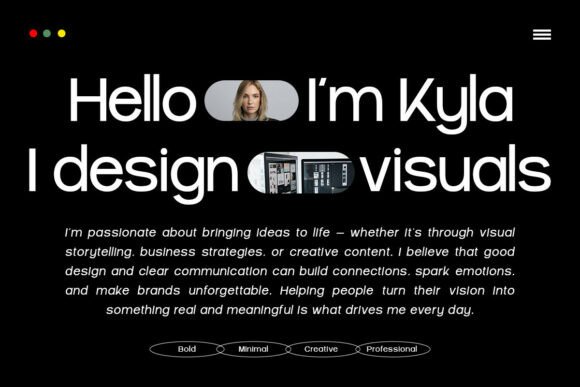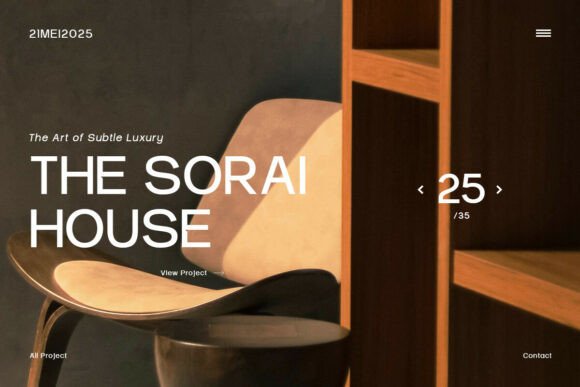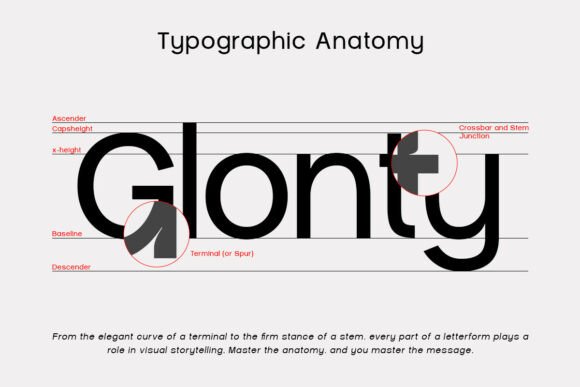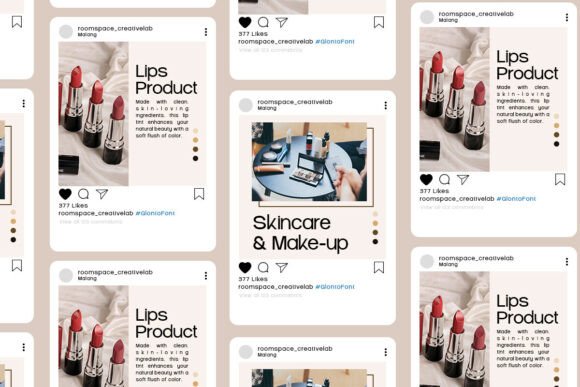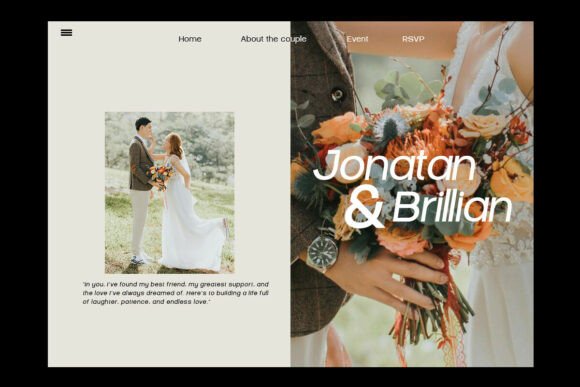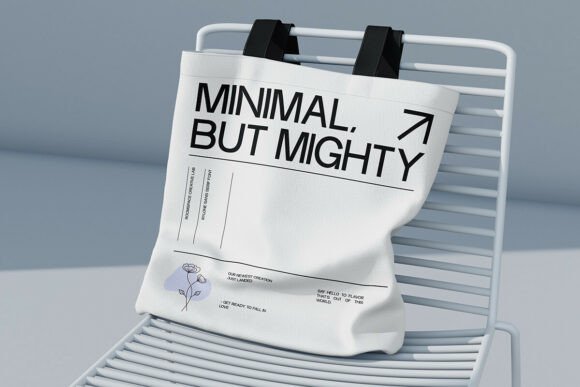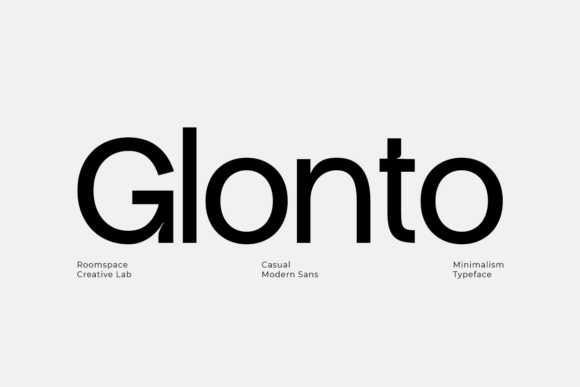
Introducing Glonto Font: The Epitome of Modern Sans Serif Elegance
In the realm of typography, a font can make or break the visual identity of a design project. For designers and crafters seeking a typeface that embodies simplicity, elegance, and professionalism, Glonto Font emerges as a stellar choice. Glonto is a clean and modern sans serif font meticulously crafted to cater to a wide array of design needs, including branding, UI/UX design, editorial projects, and creative work.
Design Philosophy and Features
Glonto’s design philosophy revolves around the principles of simplicity and elegance. This sans serif font is not just about aesthetics; it’s about functionality and versatility. With its balanced proportions and crisp lines, Glonto ensures excellent readability across various mediums, making it an ideal choice for both digital and print designs. The font’s clean and modern look is engineered to provide a professional and fresh appearance, helping your designs stand out in a crowded creative landscape.
One of Glonto’s most significant advantages is its versatility. This typeface is incredibly adaptable, working beautifully across a spectrum of design applications. Whether you’re crafting a logo, creating headlines, designing posters, or working on digital interfaces and print materials, Glonto brings a level of sophistication and modernity that’s hard to achieve with other fonts. Its universal appeal makes it a go-to font for designers looking to imbue their projects with a contemporary aesthetic.
Why Choose Glonto Font?
There are several reasons why Glonto Font should be at the top of your typeface considerations:
• Clean and Modern Aesthetic: Glonto’s design ensures your projects look contemporary and relevant.
• Excellent Readability: The balanced proportions and crisp lines of Glonto make it easy to read, across various sizes and mediums.
• Versatility: From logos and branding to UI/UX, editorial, and print designs, Glonto adapts seamlessly.
• Professionalism: The font’s elegant and simple design lends a professional look to any project.
Glonto in Design Practice
For designers and crafters, integrating Glonto into your workflow can significantly enhance the visual appeal of your projects. Here are a few practical applications:
• Branding and Logos: Use Glonto to create memorable and impactful brand identities.
• UI/UX Design: Enhance user interfaces with a font that’s both modern and readable.
• Editorial Projects: Add a touch of elegance to magazines, newspapers, and digital publications.
• Print Designs: From posters and flyers to brochures and business cards, Glonto brings a professional edge.
Glonto Font stands out in the world of typography as a beacon of modern sans serif elegance. Its design, centered around simplicity and elegance, makes it an invaluable asset for designers and crafters aiming to elevate their projects. With its versatility, readability, and professional aesthetic, Glonto is poised to become a favorite in the design community. Whether you’re working on a branding project, UI/UX design, or any creative endeavor, Glonto Font offers the perfect blend of form and function to make your designs stand out.
Embrace the clean lines, modern appeal, and versatility of Glonto Font in your next project. Experience firsthand how this typeface can transform your designs, adding a level of sophistication and professionalism that’s sure to leave a lasting impression.